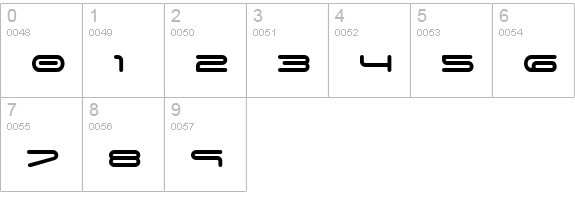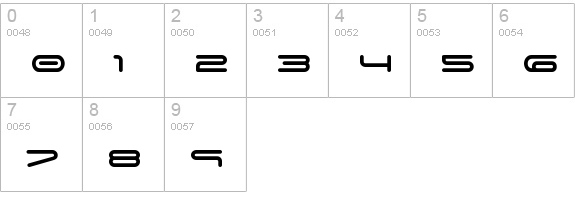
Disney Mission Space Regular Font Details
Disney Mission Space Regular is the standard, neutral variant in the Disney typeface family \xE2\x80\x94 well suited to general body text, paragraphs, and standard typographic work.
Disney Mission Space Regular font is a whimsical and playful typeface that captures the magic and wonder of outer space. With its rounded edges and futuristic design, this font is perfect for adding a touch of fun to any project. Whether you're creating a poster for a sci-fi movie or designing a birthday card for a space enthusiast, Disney Mission Space Regular font is sure to bring a smile to your audience's faces. And the best part? This enchanting font is available for free download at FontsMarket.com. So why wait? Add a dash of intergalactic charm to your designs today with Disney Mission Space Regular font.